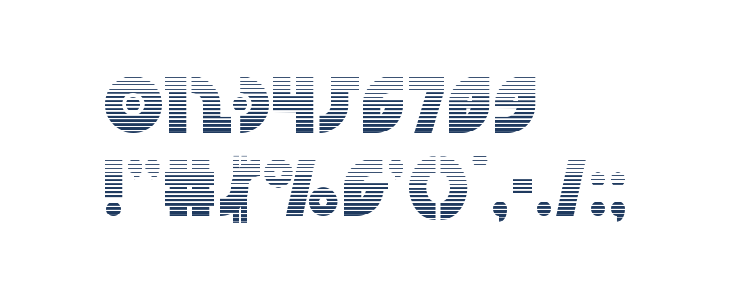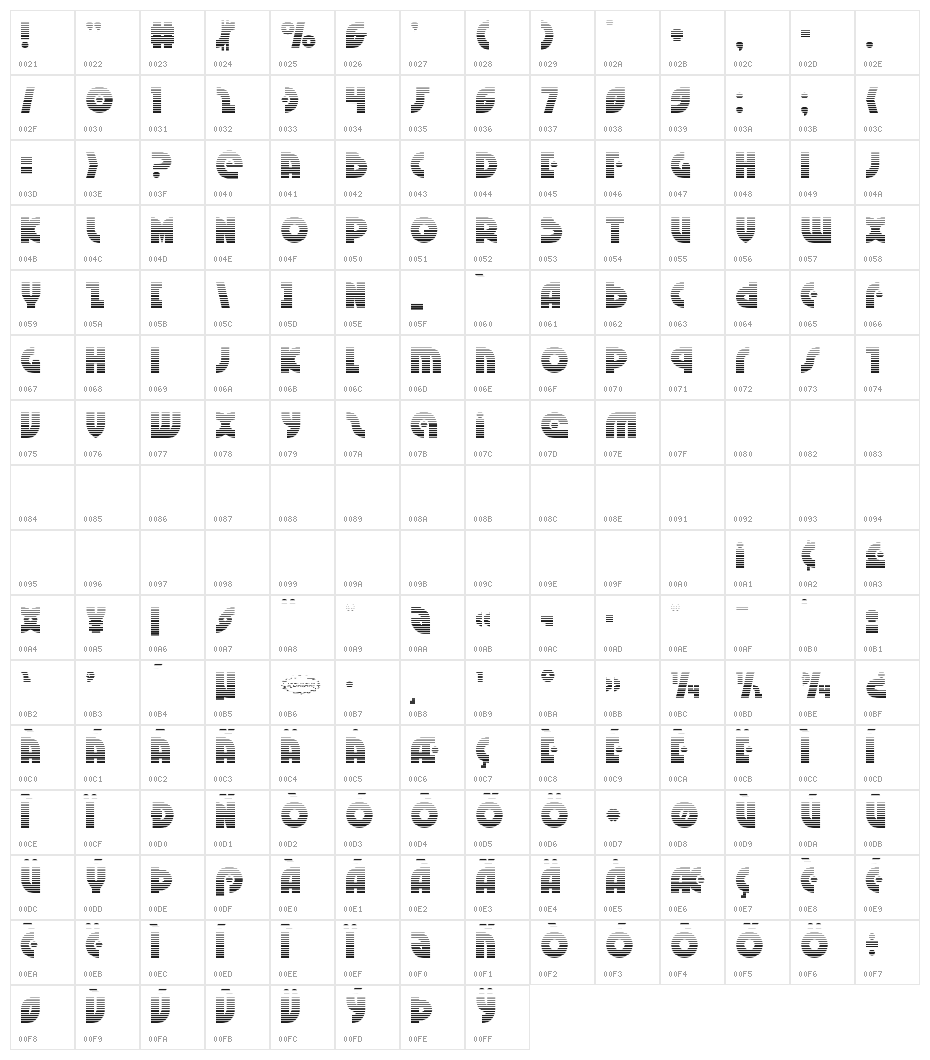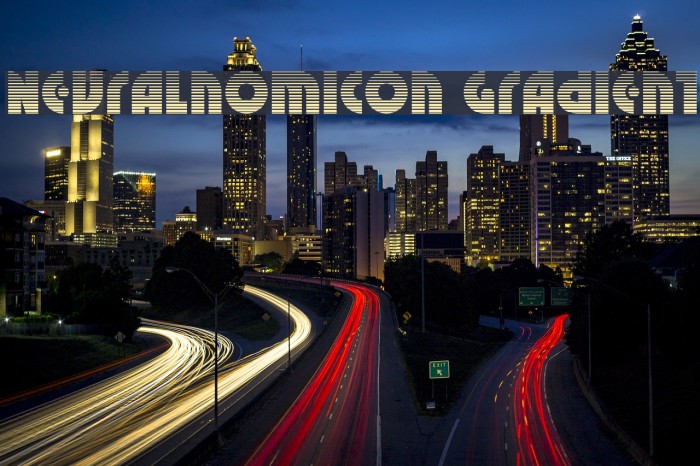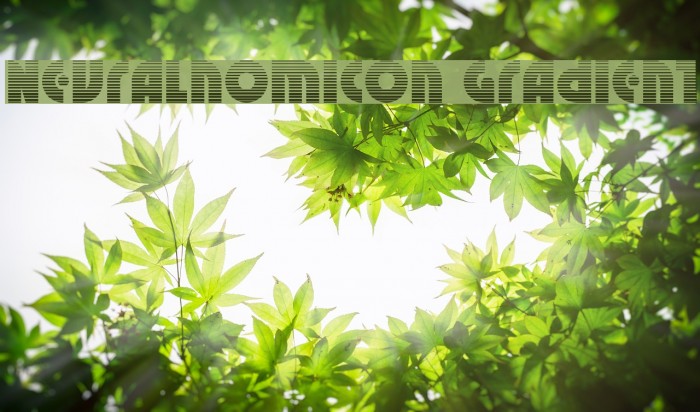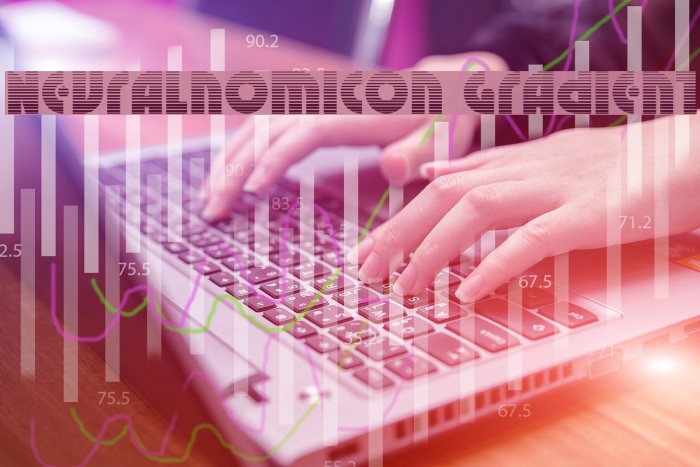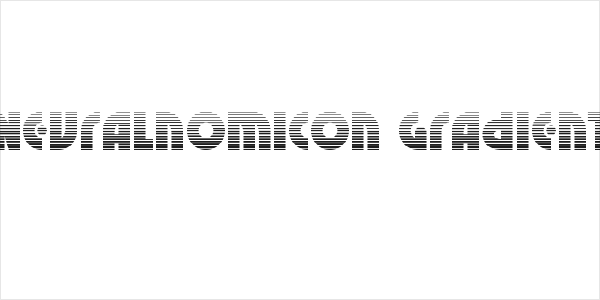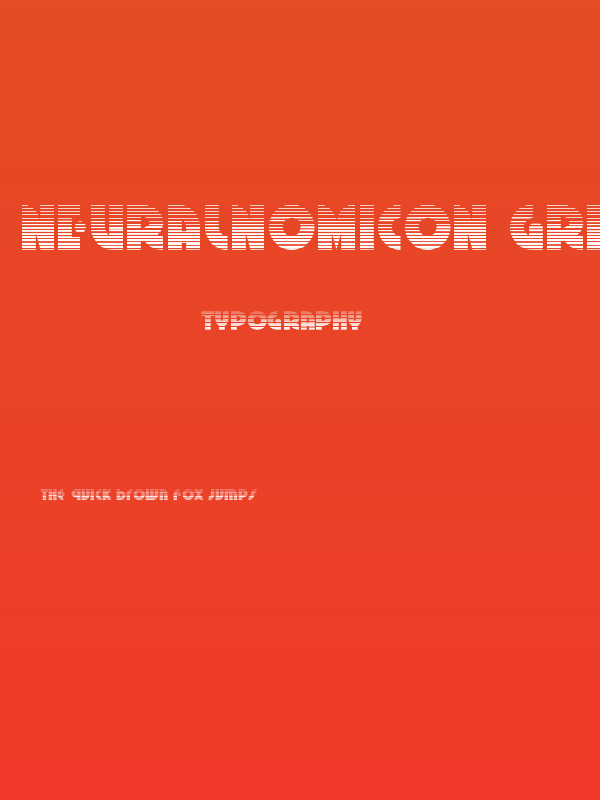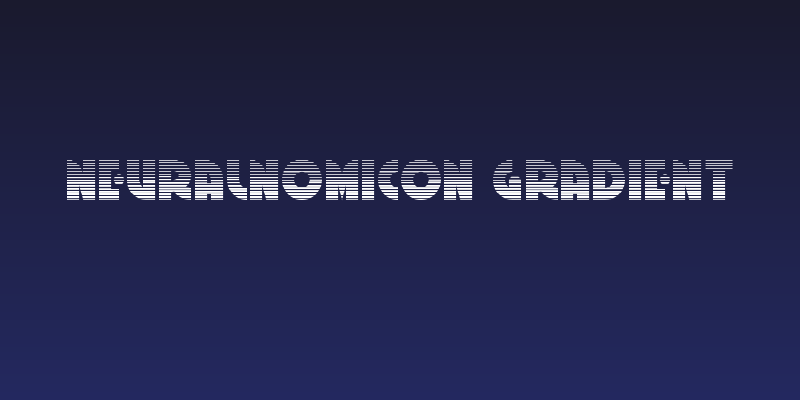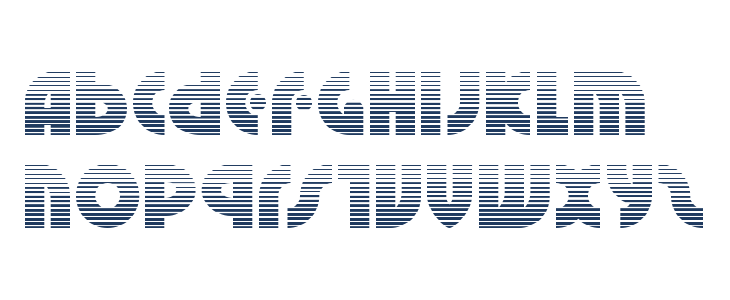
Neuralnomicon Gradient Font
Neuralnomicon Gradient Description
This font features a unique design characterized by horizontal lines that create a gradient effect across each character. The letters are bold and have a futuristic, digital appearance, making them stand out with a striking visual impact. The uppercase and lowercase letters maintain a consistent style, with rounded edges and a geometric structure. Numbers and special characters follow the same design principles, ensuring uniformity across all glyphs. The font's distinct style is both modern and decorative, suitable for projects that require a bold and eye-catching typeface.
| Proposed Projects | Ideal for digital art, tech branding, futuristic posters, and video game titles. |